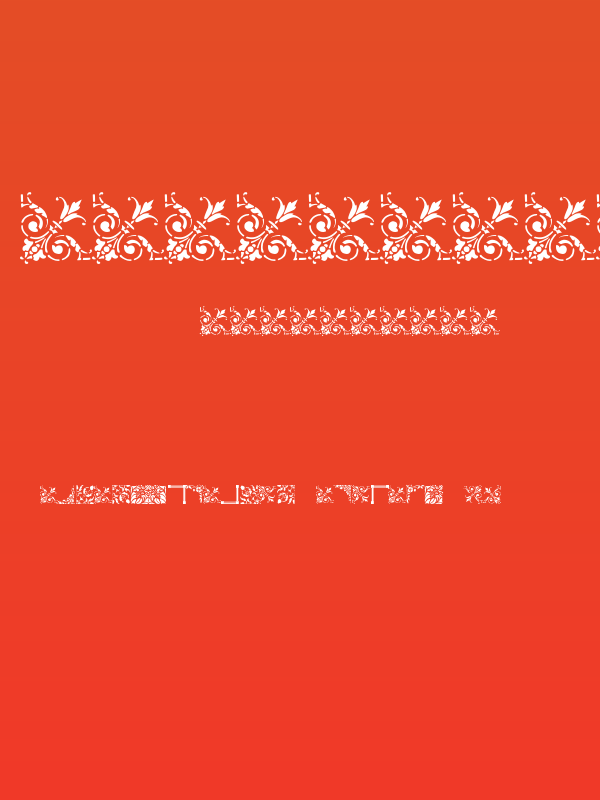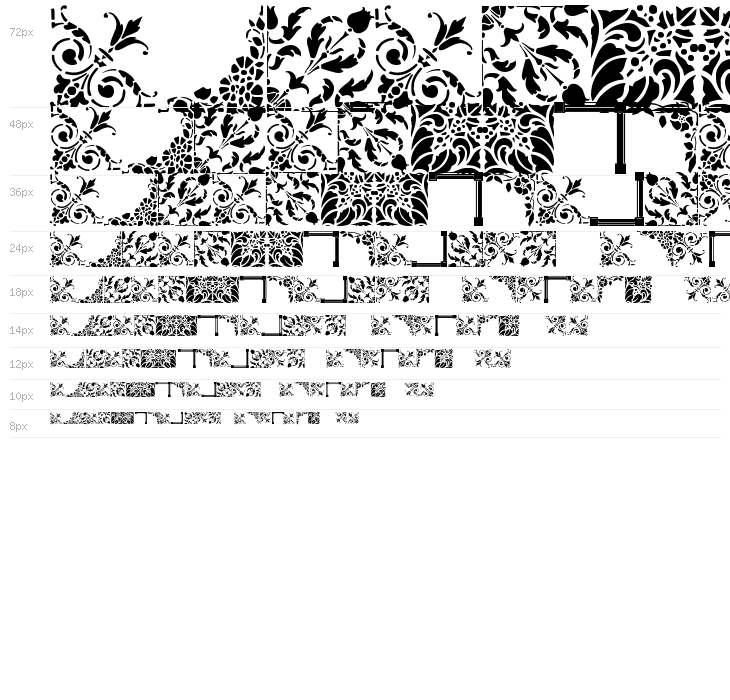
Vintage Decorative Corners 17 Font
Vintage Decorative Corners 17 Description
This image features ornate, highly decorative vintage corner and border elements with intricate floral and swirl motifs, rendered in black and white. The designs are symmetrical and detailed, evoking a classic ornamental style often seen in antique frames or invitations.
| Overall Style | Vintage, Decorative |
| Use Case | Borders, Corners, Decorative accents |
| Proposed Projects | Wedding invitations, certificates, vintage-themed posters, book covers, decorative frames, scrapbooking. |